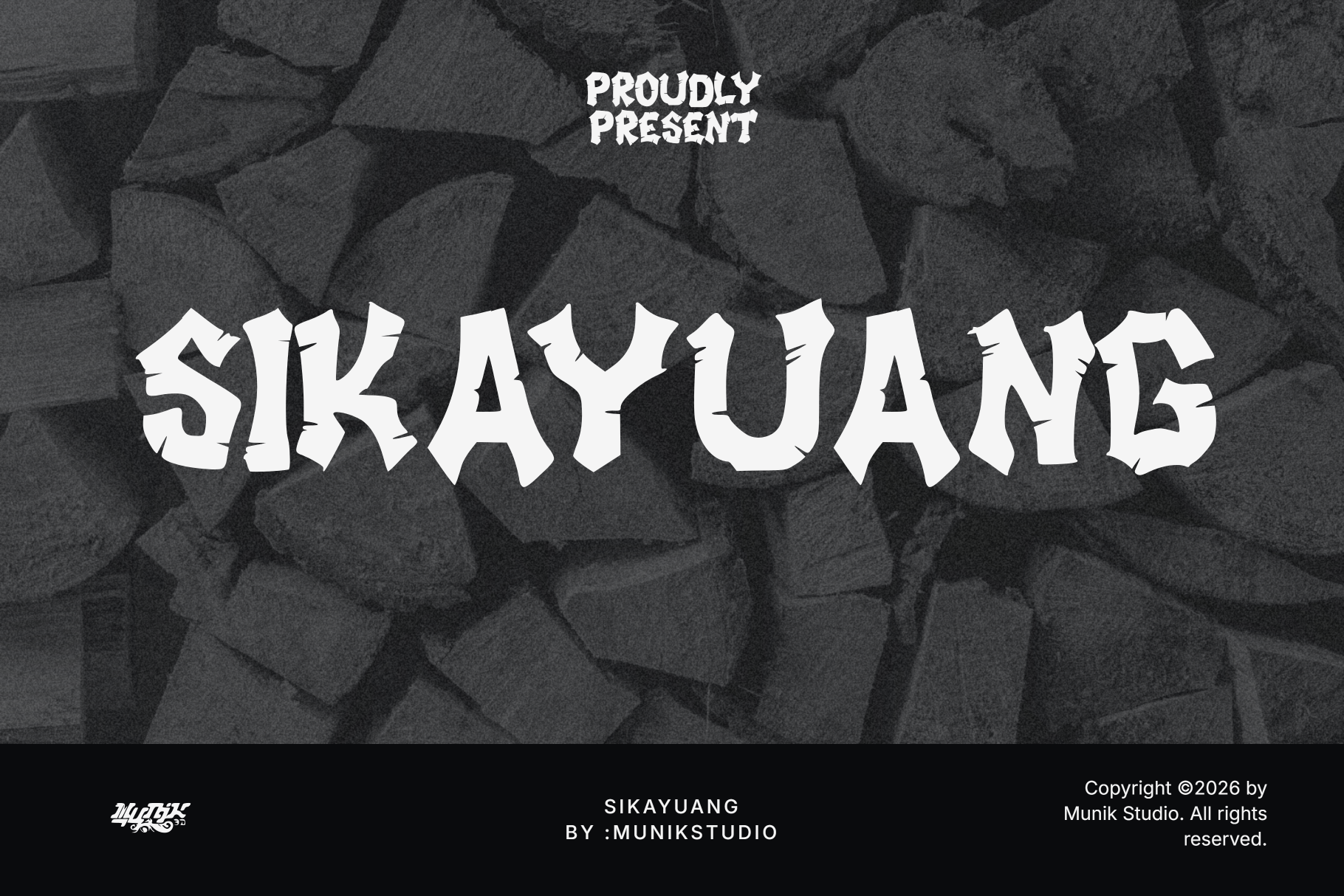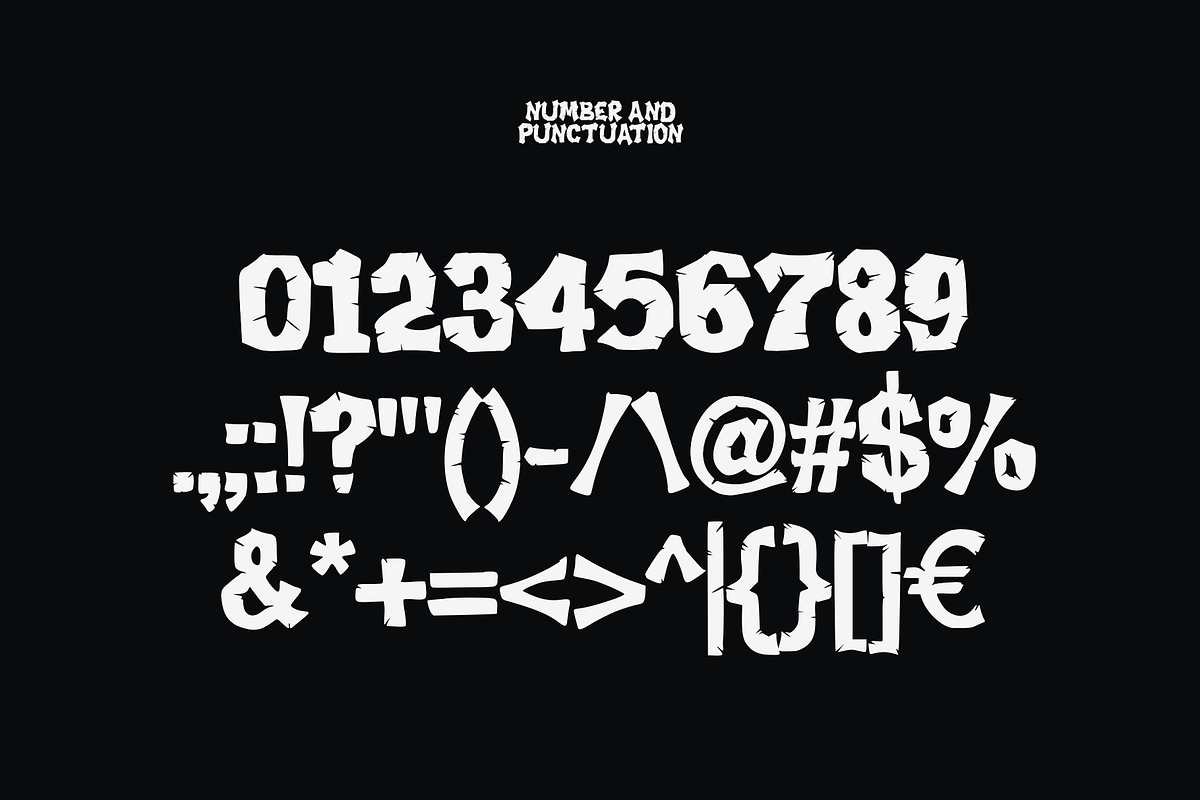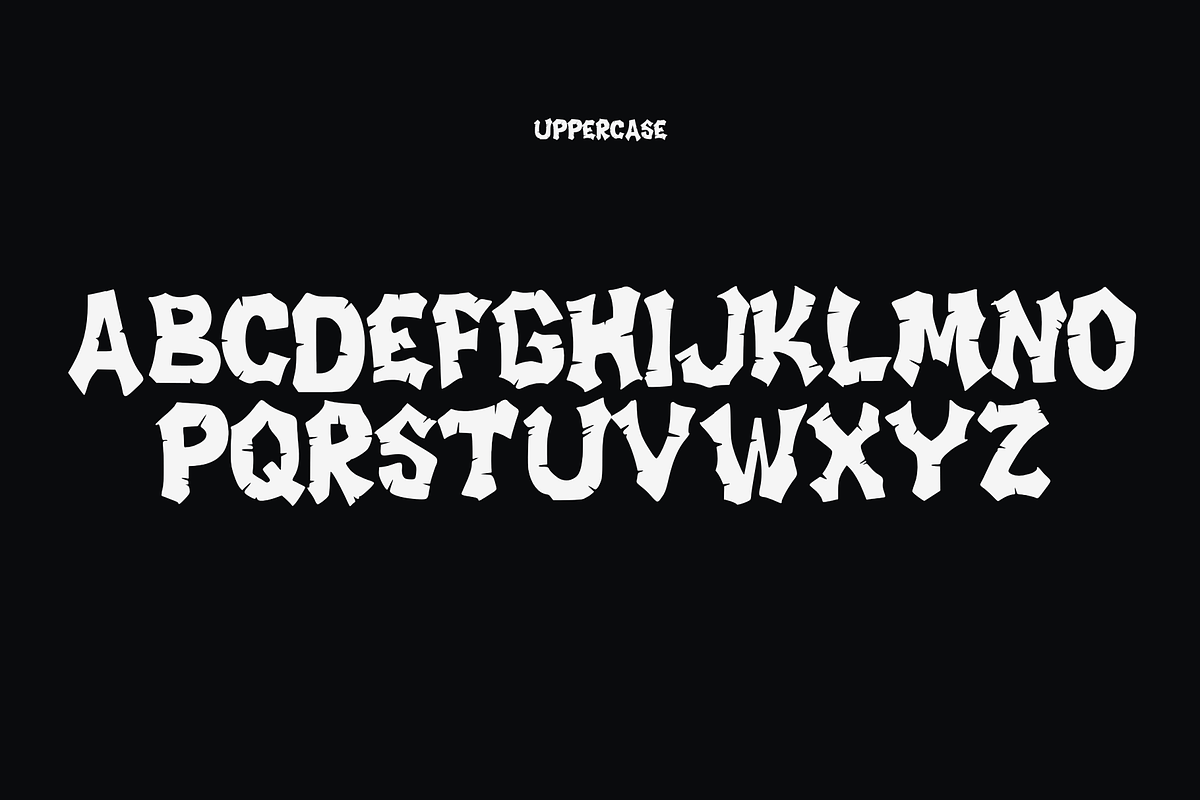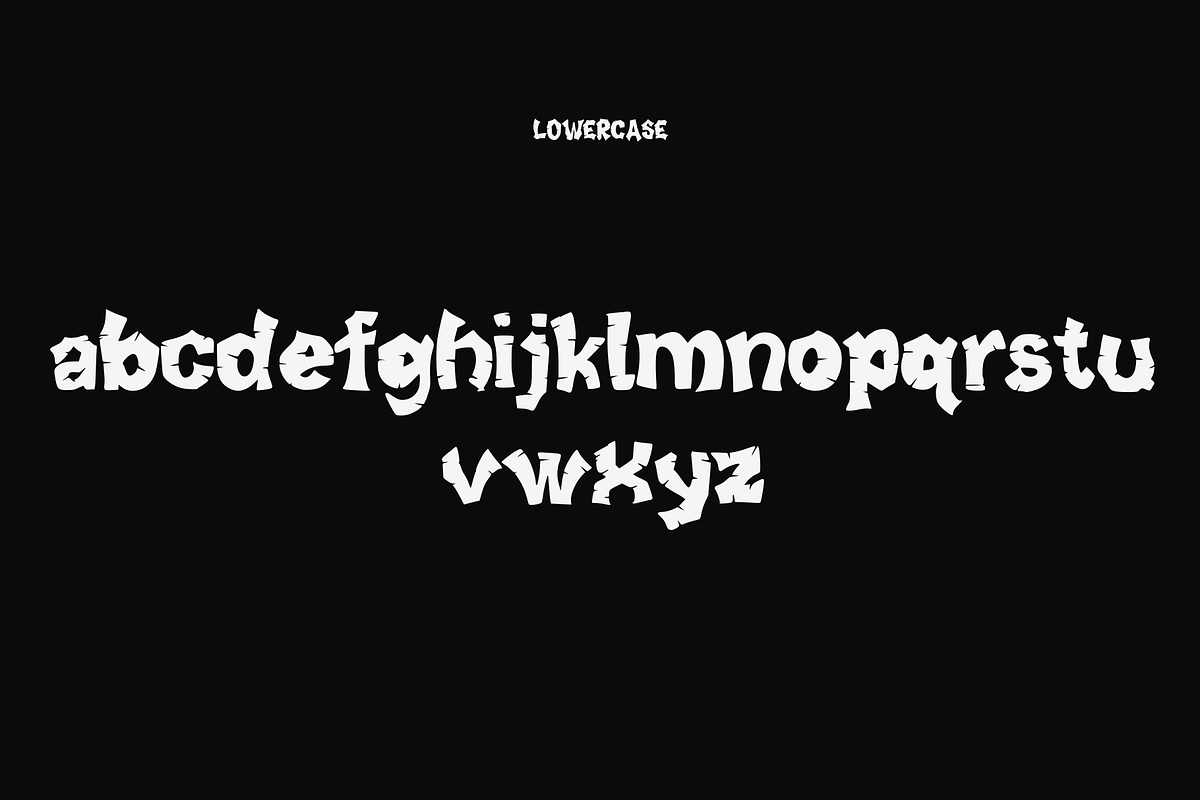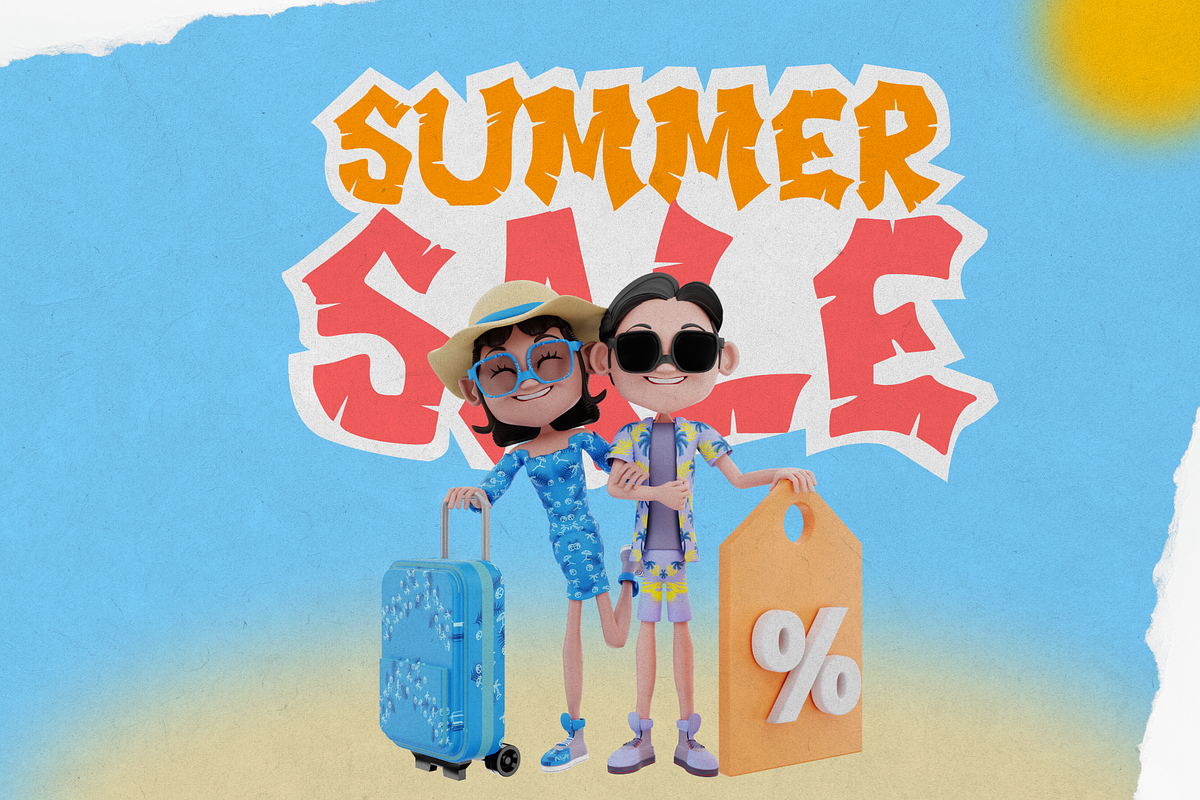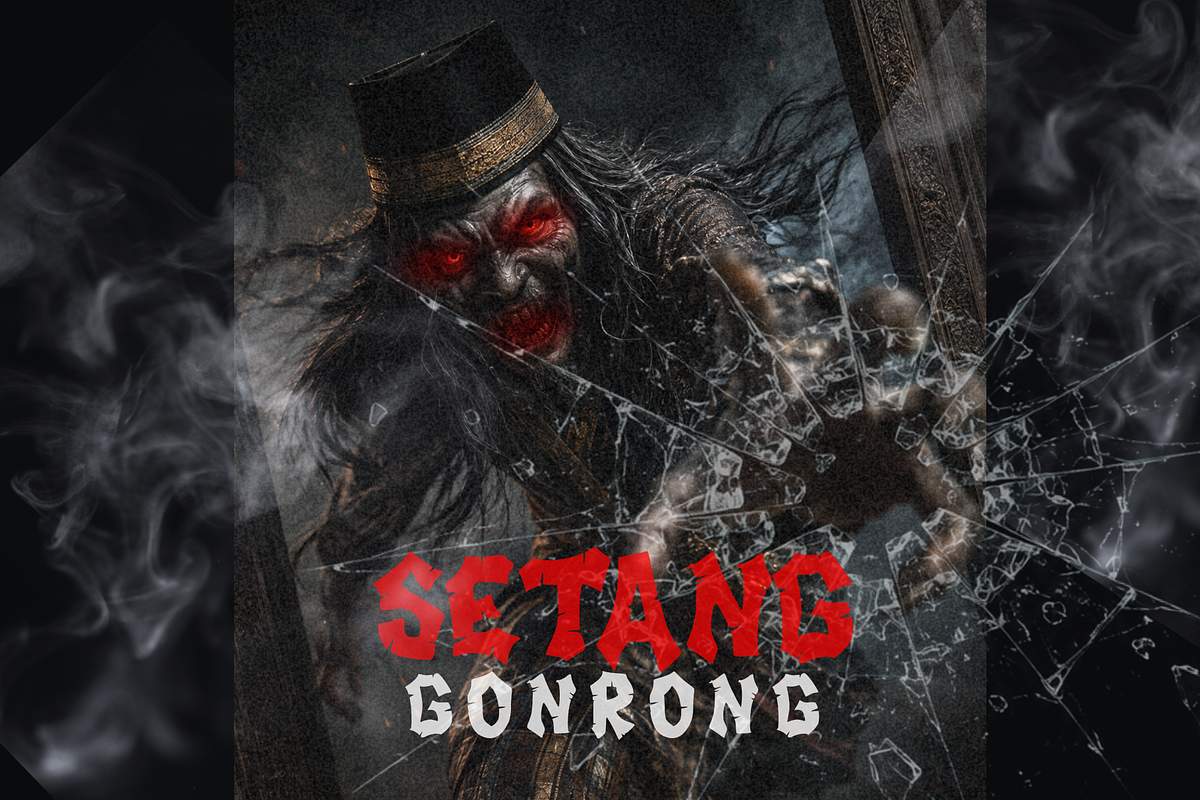
SIKAYUANG FONT
Sikayuang
Sikayuang is a bold and sinister display font inspired by dark folklore, horror aesthetics, and raw underground typography. Its sharp, irregular letterforms create an aggressive hand-drawn appearance, giving every word a wild, mysterious, and rebellious character.
Designed with strong silhouettes, distorted angles, and rough organic details, Sikayuang is made to command attention and bring an intense atmosphere to your designs. The dramatic shapes work especially well in large headlines where the personality of the typeface can truly stand out.
Sikayuang is perfect for horror posters, dark fantasy artwork, metal and rock designs, streetwear, album covers, movie titles, gaming graphics, event posters, logos, merchandise, and other bold display projects.
Whether you are creating something terrifying, rebellious, mysterious, or simply unconventional, Sikayuang adds a distinctive dark character to your typography.
Sikayuang — Wild letters for dark stories.